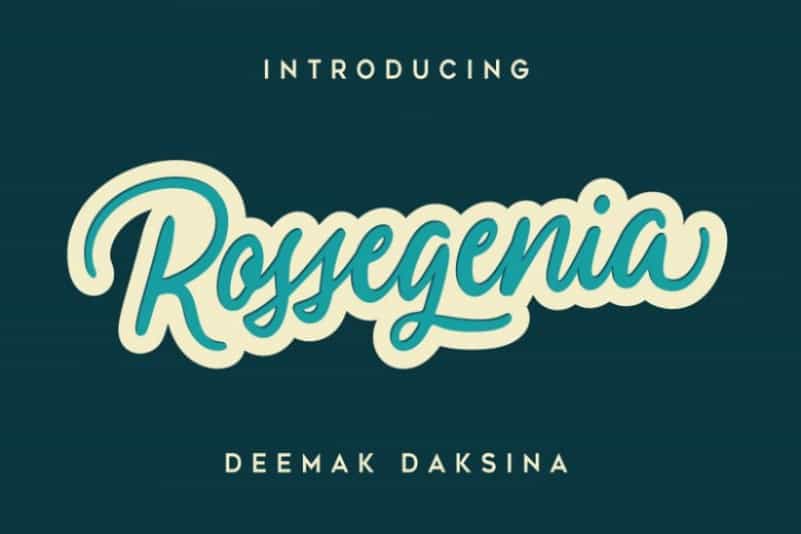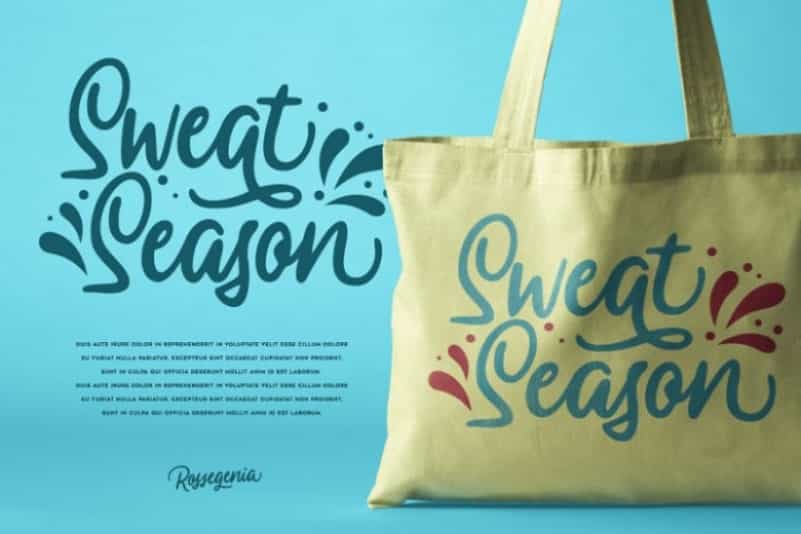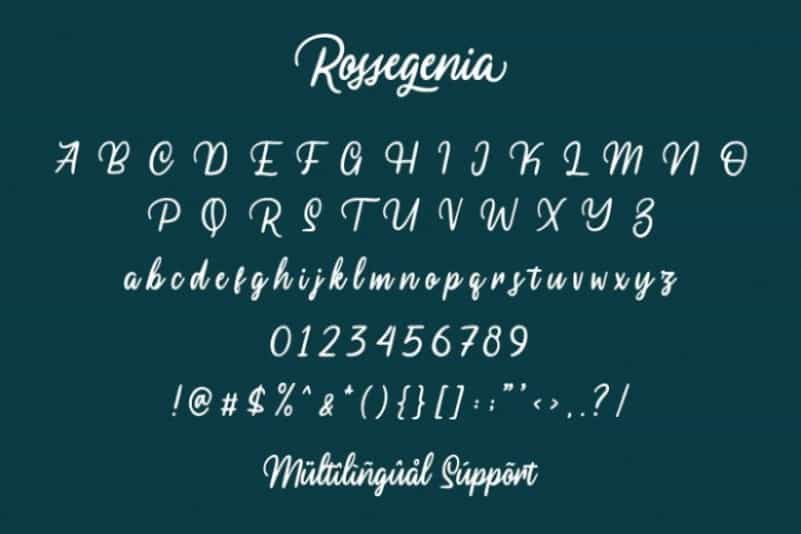
Rossegenia Font is a beautiful cursive script that we created for relevance and appropriateness for any age of female This is perfect for branding purposes, home appliances, product packaging, t-shirt design, calendar design, logo design, etc.